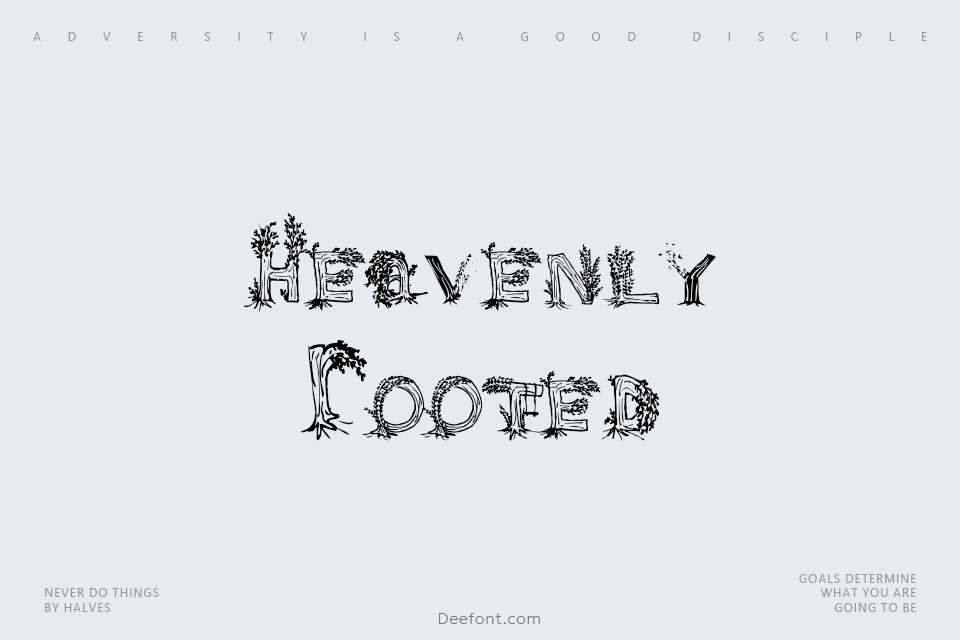
Heavenly Rooted Font
Heavenly Rooted is a decorative display font featuring intricate floral and organic patterns. Created by Hannah Booe, this versatile typeface brings elegance and sophistication to any design project. With its ornate aesthetic and detailed characteristics, Heavenly Rooted is perfect for creating visually captivating typography that stands out in creative applications and artistic endeavors.